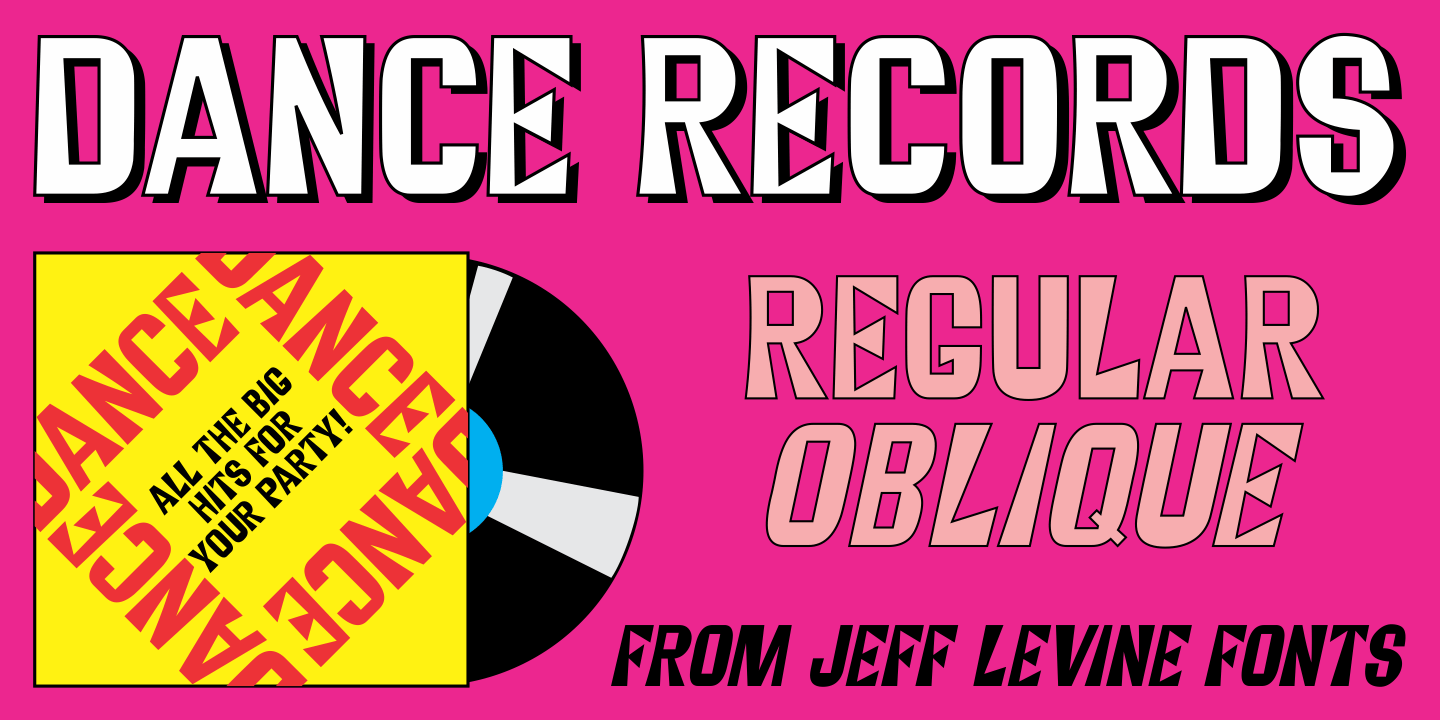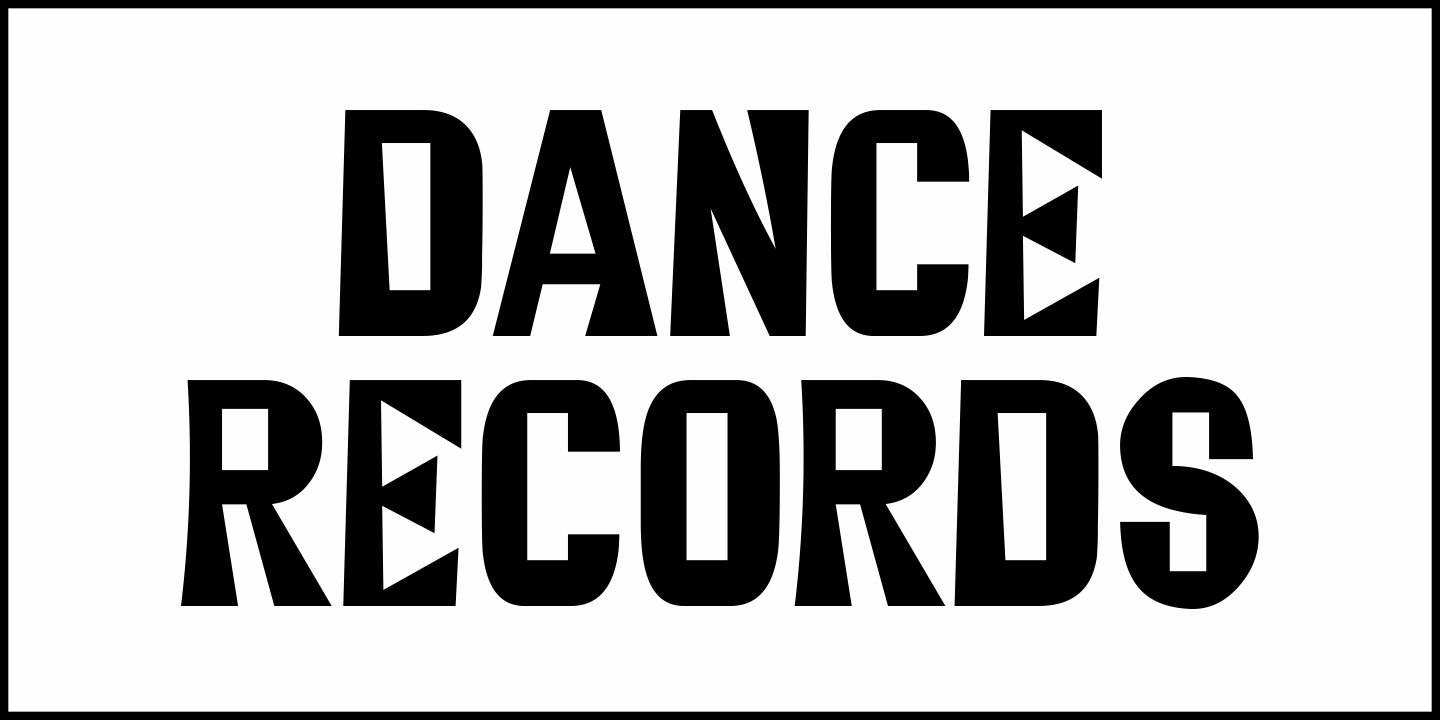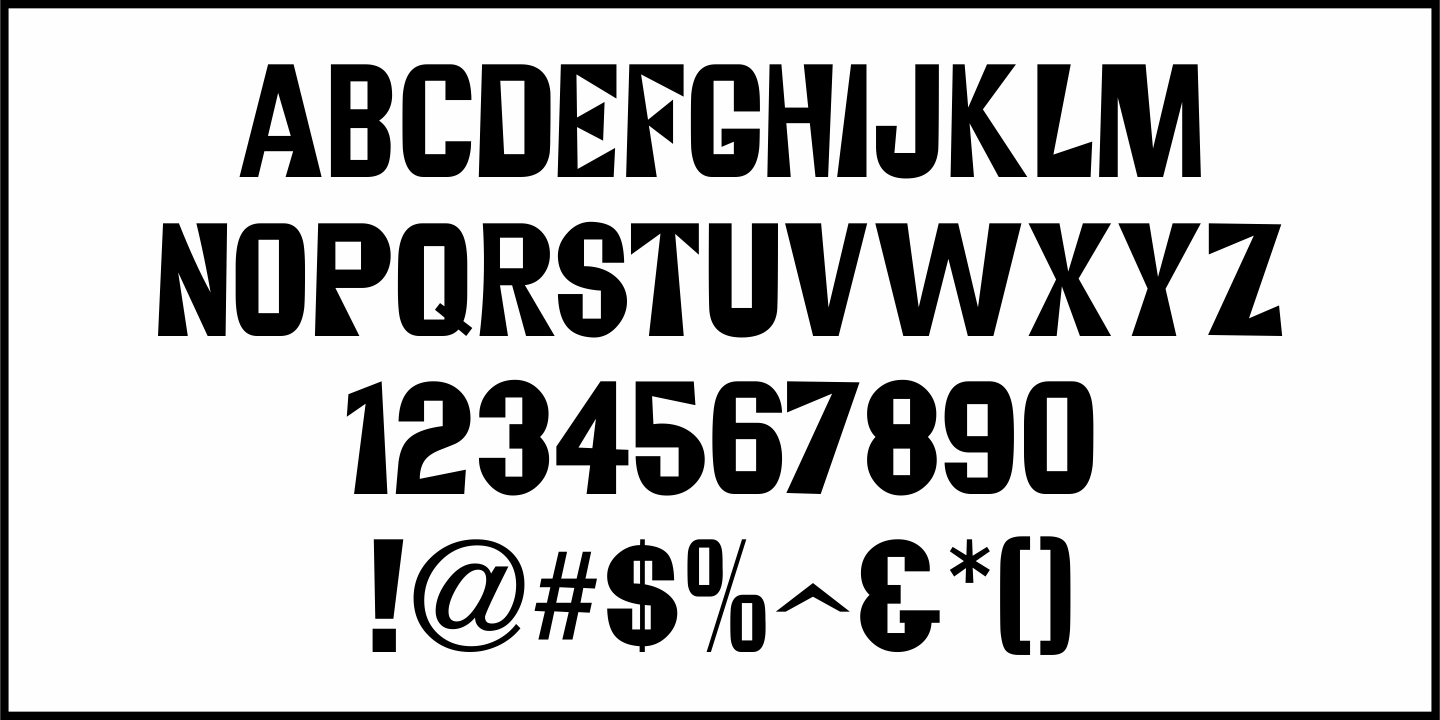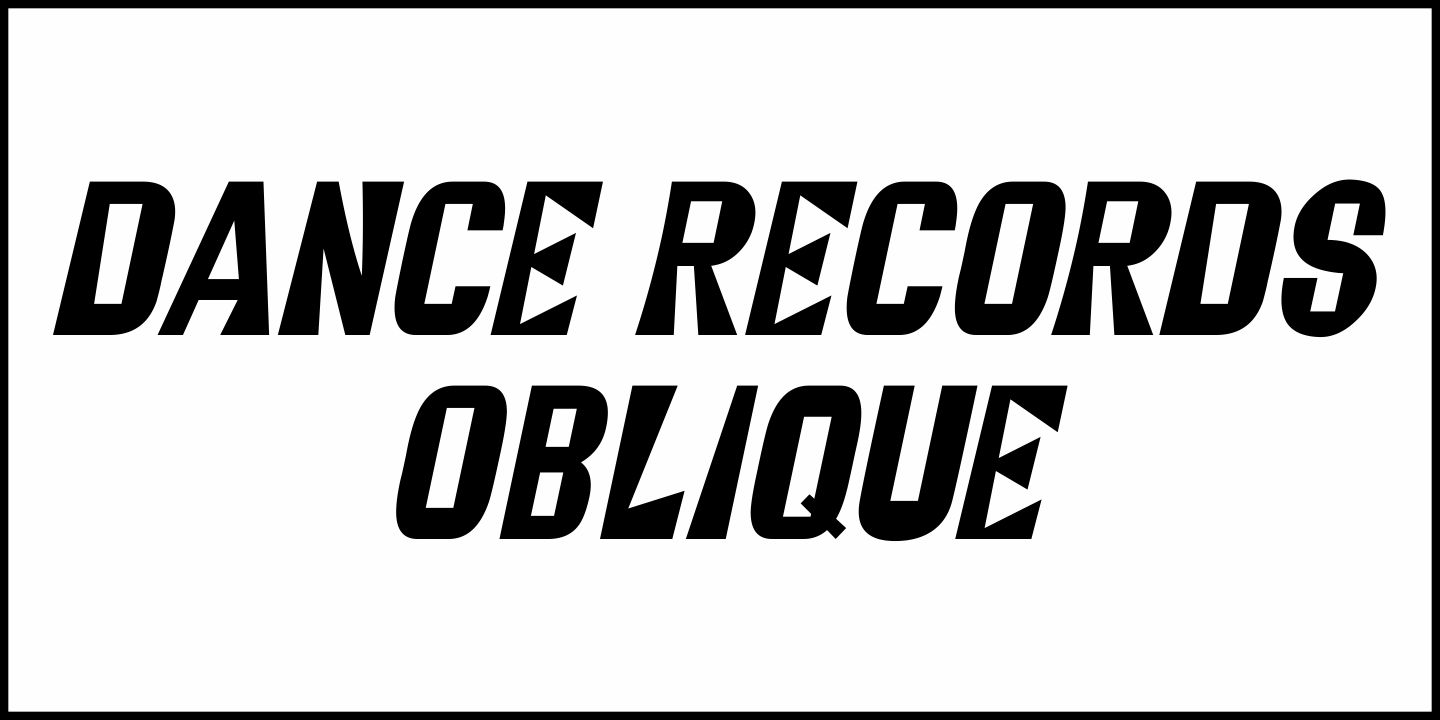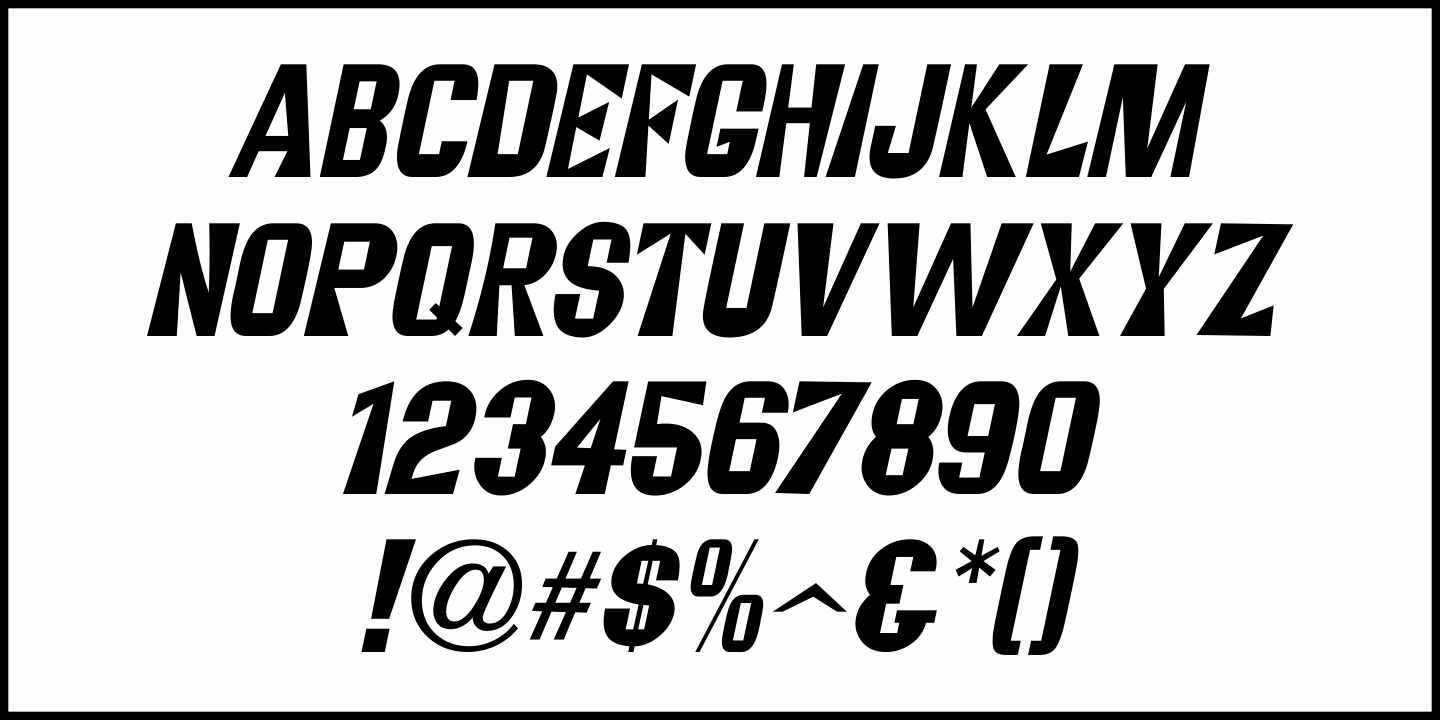
Dance Records
A record album entitled “Calypso” by the Talbot Brothers had a hand lettered cover with a free form style reminiscent of the early 1960s.
This inspired Dance Records JNL, which is available in both regular and oblique versions.